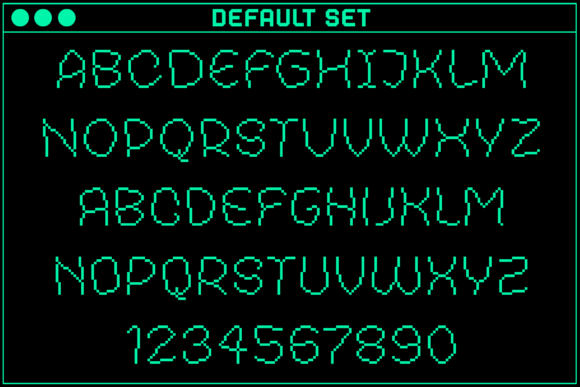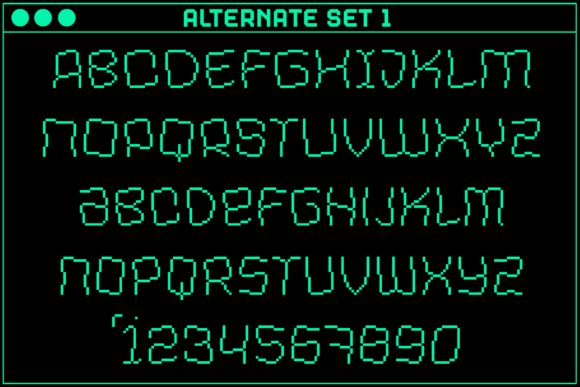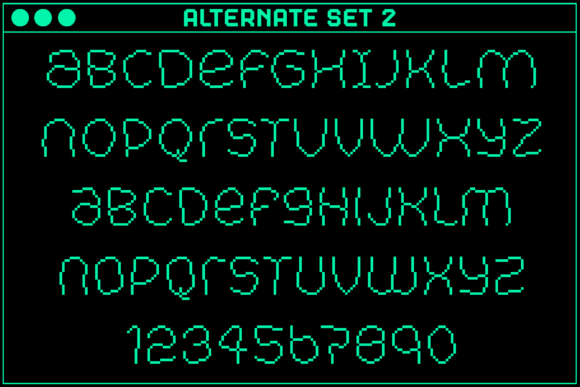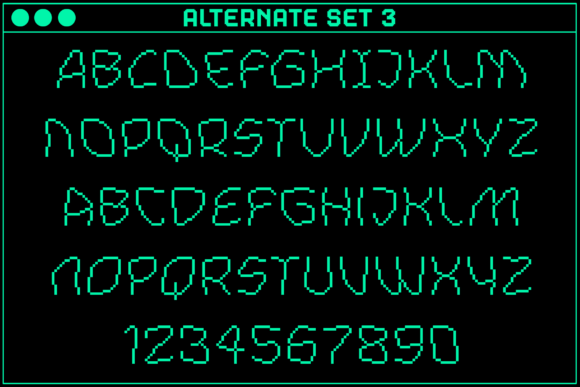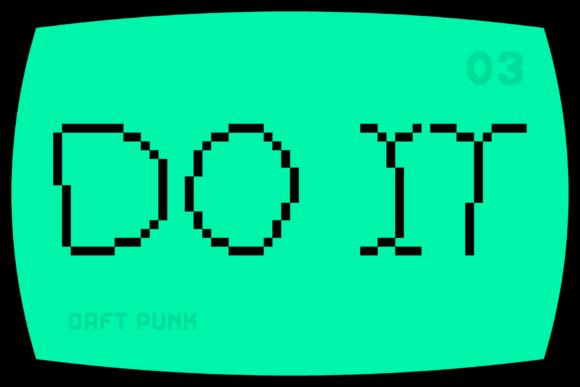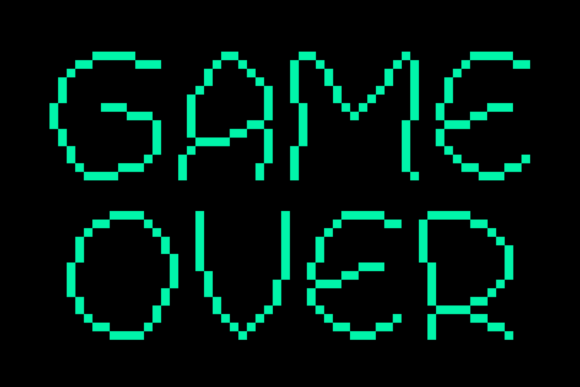
The Ultimate Gaming Font: Gamer Irregular Thin
Have you ever been in the middle of a design project, and suddenly, you just can’t seem to find the right font? I know I have. It was a typical Wednesday evening when I was working on a gaming-themed poster for a client. I had all the graphics and colors sorted out, but the font just wasn’t cooperating. That’s when I stumbled upon Gamer Irregular Thin, a cool, uniquely shaped, pixelated display font that completely transformed my design.
First Impressions: A Cool, Pixelated Font
Gamer Irregular Thin is more than just a font – it’s a statement piece. Its distorted, pixelated design gives any project a trendy touch that’s perfect for gaming, tech, or even retro-themed designs. The best part? It’s PUA encoded, which means you can access all glyphs and swashes with ease!
- ✨ Unique, pixelated design that’s perfect for gaming and tech-themed projects
- 💻 Highly legible, even at smaller font sizes
- 🎨 Versatile and can be used for a variety of design projects, from posters to social media graphics
- 🤔 Limited use for body text due to its pixelated design
- ⚠️ May not be suitable for projects that require a more formal or traditional look
The story behind Gamer Irregular Thin is one of creativity and experimentation. The designer, inspired by the world of gaming and pixel art, set out to create a font that would capture the essence of this unique aesthetic. Through a process of trial and error, they refined the design, adding unique touches and features that make Gamer Irregular Thin stand out.
A: While Gamer Irregular Thin is highly legible, its pixelated design makes it more suitable for headlines, titles, and short text passages. For body text, you may want to choose a font with a more traditional design.